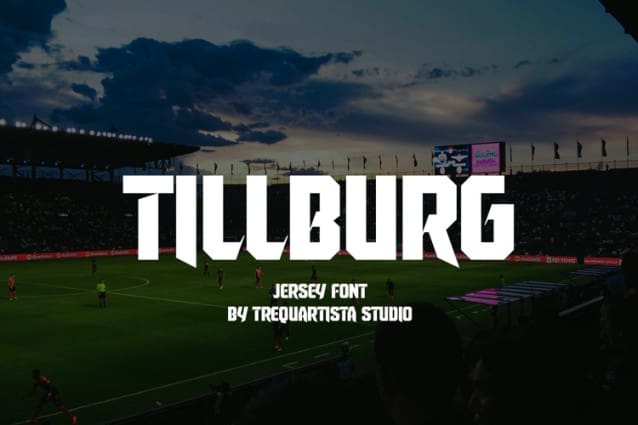
Tillburg Display Font
Tillburg Display Font, This bundle features strong, confident and powerful typefaces designed to work great with sports logos, club branding, apparel applications, labels and more.